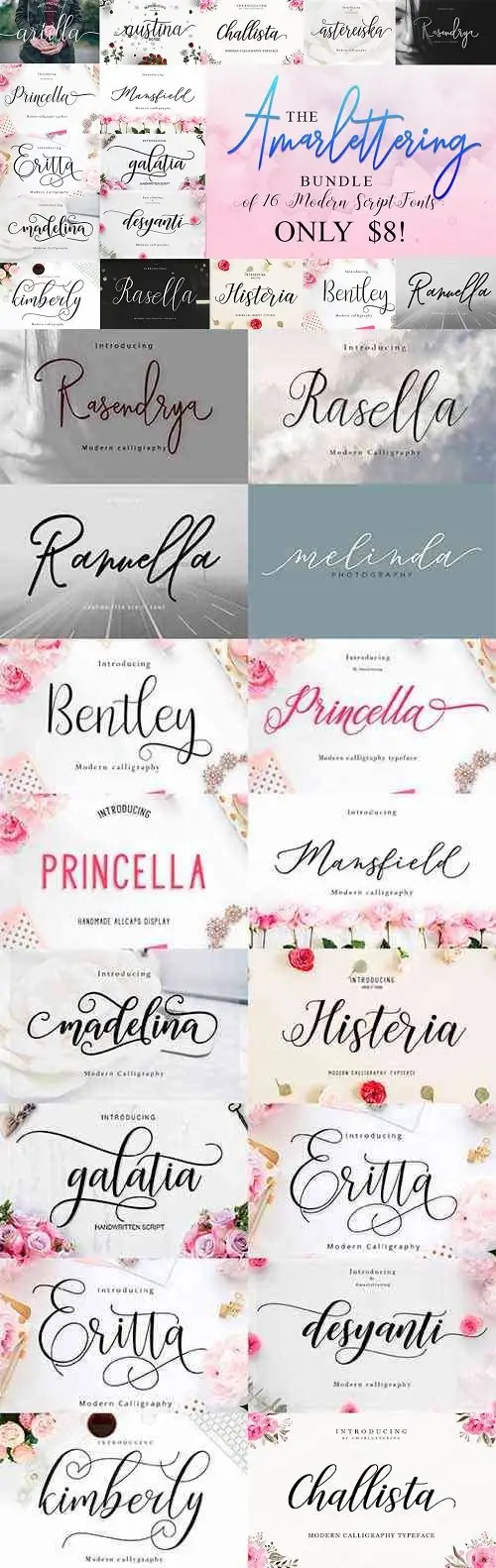
The Amarlettering Bundle of 16 Modern Script Fonts
Your typeface toolbox is about to get an elegant facelift. The Amartelling Bundle is flowing with fabulous fonts. You'll score 16 magnificent, hand-drawn script fonts that are the perfect answer to a variety of projects from wedding invitations to T-shirt designs. With plenty of OpenType features and multiple languages, there's plenty of flexibility to play with too.